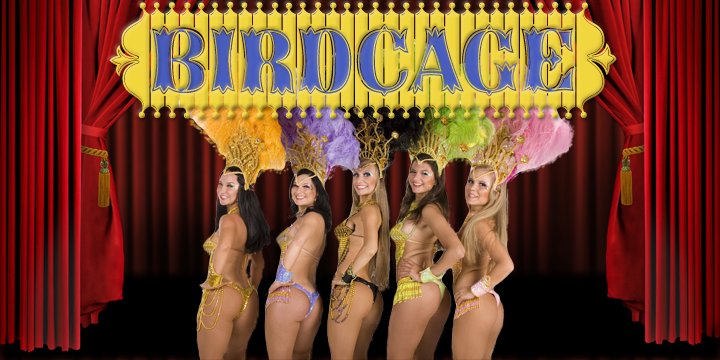
Birdcage was designed from a very short lettering sample in Rob Roy Kelly’s American Wood Type book, from the image I created a complete font plus a regular version with lowercase.
In the past banner style fonts would limit you to a monospaced look, so how do you kern a banner font? Well, with today’s OpenType font format the solution is simple, draw the kerning pairs together as one character glyph and place them inside the font then use auto substitution to access those characters when needed. More…
Birdcage (OpenType version) includes 249 auto ligature kerning pairs, to use this feature you will need an application that takes advantage of OpenType features such as Adobe CS products.